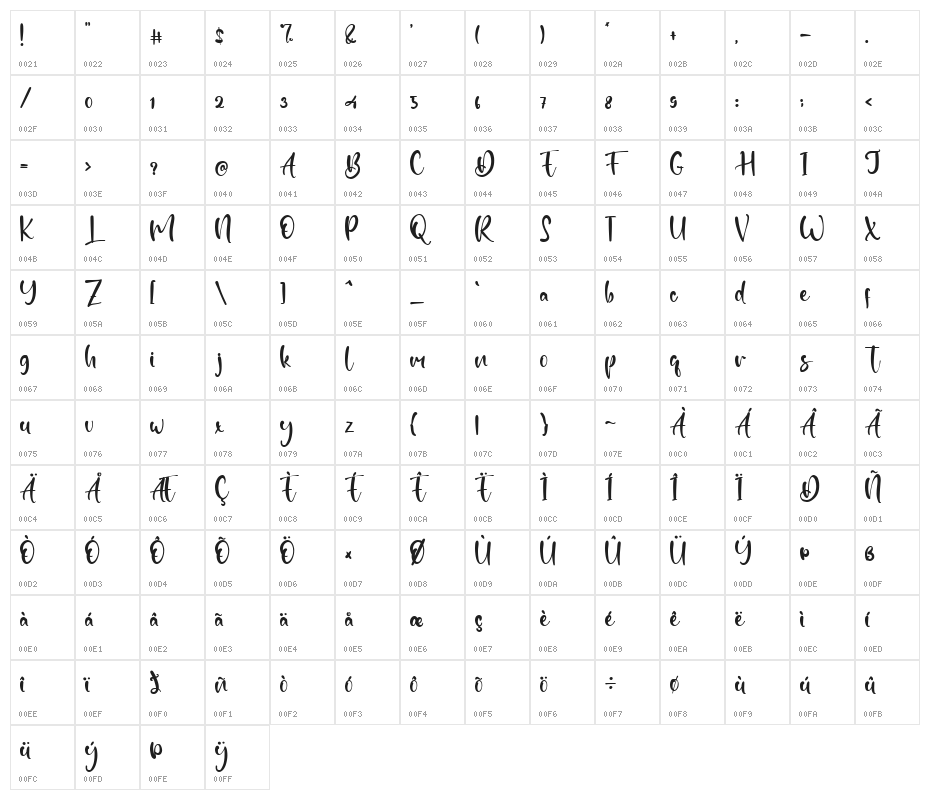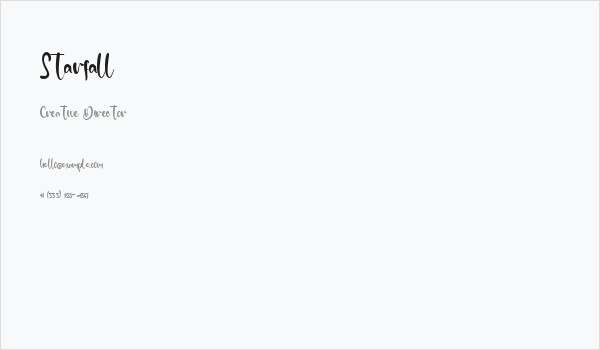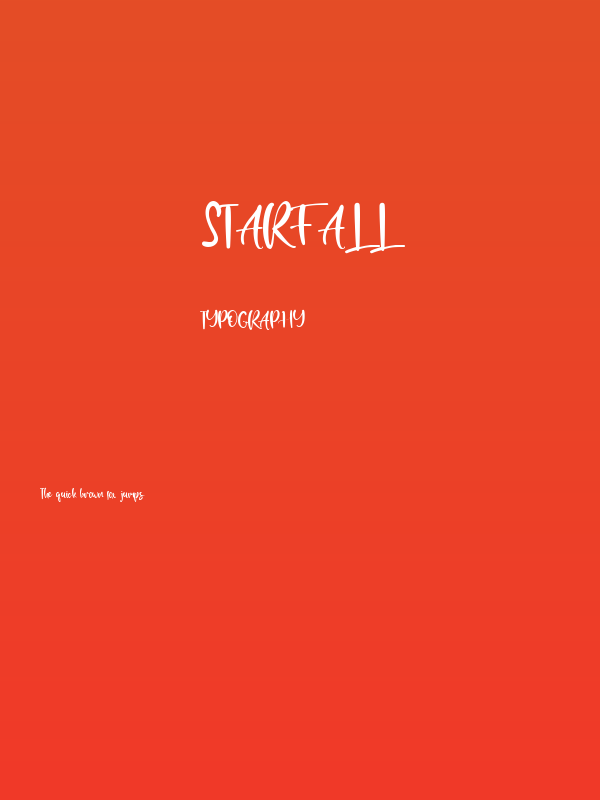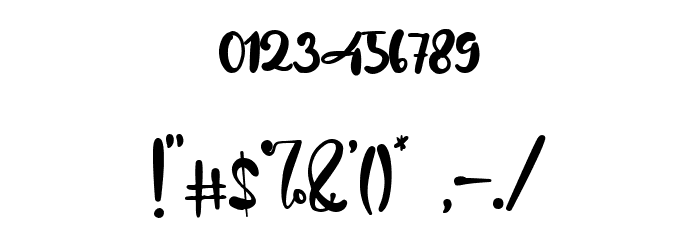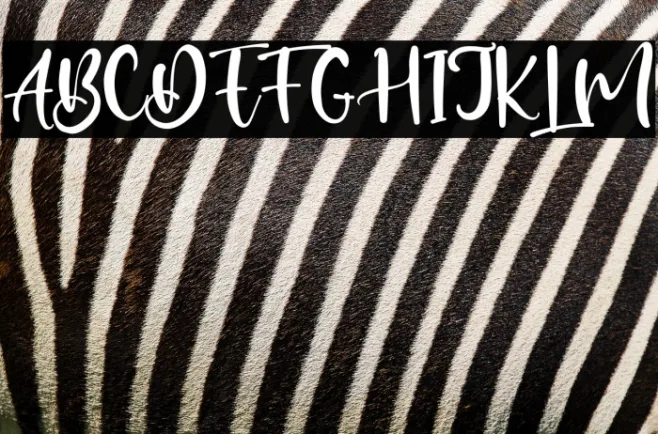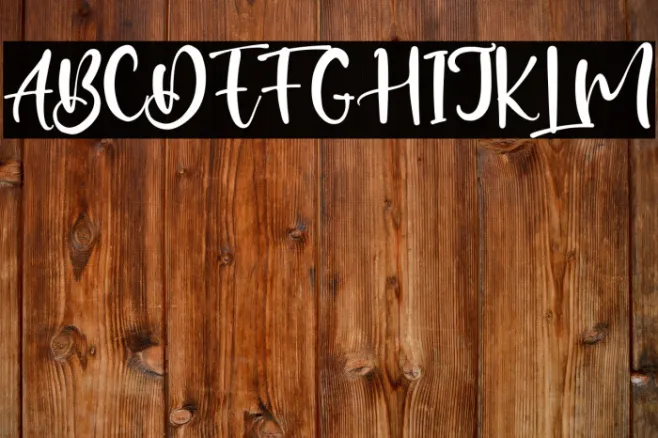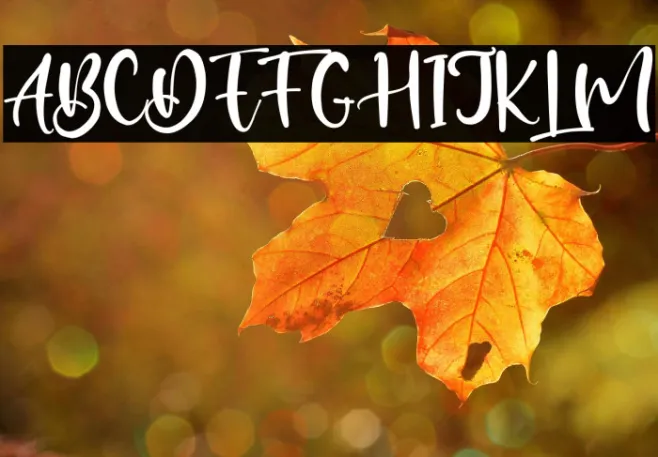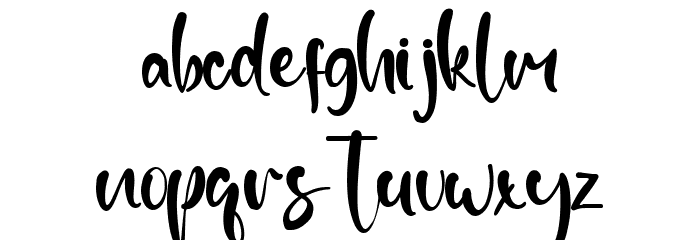
Starfall Font
Starfall Description
This font features a playful and energetic script style, characterized by its flowing, handwritten appearance. The uppercase letters are bold and dynamic, with a slight slant that adds to the casual feel. The lowercase letters maintain a consistent style, with smooth curves and a lively rhythm. Numbers and special characters are designed to match the overall aesthetic, ensuring a cohesive look across all text. The font's unique charm makes it ideal for creative projects that require a personal touch.
| Proposed Projects | Ideal for greeting cards, invitations, branding, and social media graphics. |